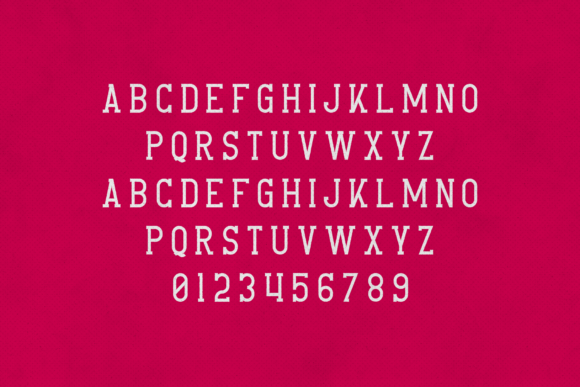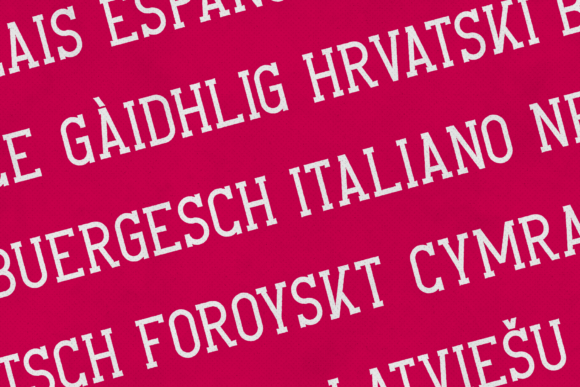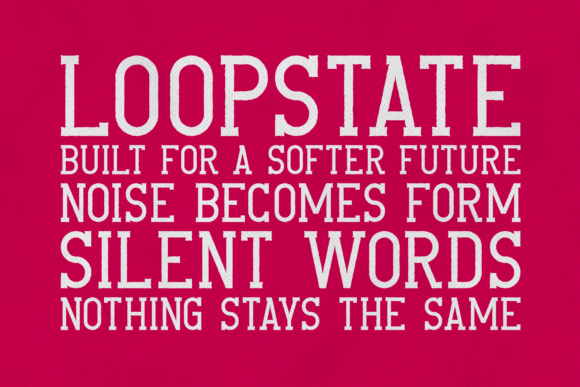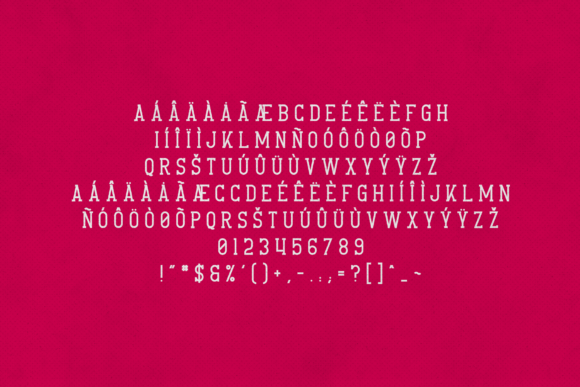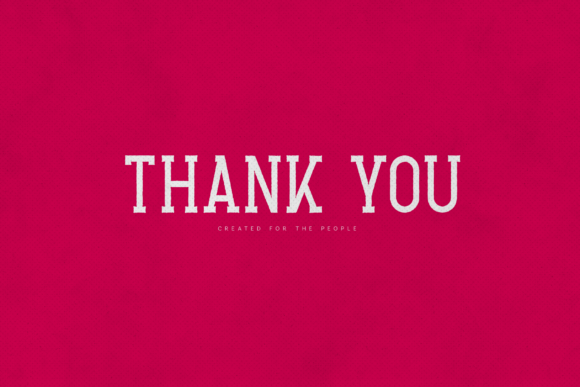
Introducing Crossroad Slab: A Bold Vintage Slab Serif for Statement Branding
Are you looking for a font that exudes personality and authenticity? Look no further than Crossroad Slab, a bold vintage slab serif inspired by classic American woodtype, western posters, and old-school print textures. This font is perfect for designers and crafters who want to add a touch of nostalgia and rugged charm to their branding projects.
The Inspiration Behind Crossroad Slab
Crossroad Slab – Rough Edition is a font that draws inspiration from the classic American woodtype, western posters, and old-school print textures. Its strong slab structure and subtle distressed texture give it a unique and rugged charm that is perfect for statement branding, packaging, merchandise, and bold editorial headlines.
Key Features of Crossroad Slab
- Bold and Vintage Look: Crossroad Slab has a bold and vintage look that is perfect for creating statement branding and eye-catching headlines.
- Slab Serif Structure: The font features a strong slab serif structure that gives it a rugged and authentic look.
- Subtle Distressed Texture: The subtle distressed texture adds a touch of nostalgia and old-school charm to the font.
- Excellent Readability: Despite its bold and rugged look, Crossroad Slab maintains excellent readability, making it perfect for use in a variety of applications.
Perfect for Vintage Branding and More
Crossroad Slab is perfect for a variety of design projects, including:
- Vintage Branding: The font’s bold and vintage look makes it perfect for creating statement branding that exudes authenticity and personality.
- Western Logos: The font’s western-inspired design makes it perfect for creating logos and branding materials for western-themed businesses.
- Whiskey Labels: The font’s bold and rugged look makes it perfect for creating eye-catching whiskey labels.
- Barber Shops: The font’s vintage look and feel makes it perfect for creating branding materials for barber shops and other traditional businesses.
- Craft Beer Packaging: The font’s bold and rugged look makes it perfect for creating eye-catching packaging for craft beer.
- Posters & Flyers: The font’s bold and vintage look makes it perfect for creating eye-catching posters and flyers.
- Merch & Apparel: The font’s bold and rugged look makes it perfect for creating eye-catching merchandise and apparel.
- Bold Headlines: The font’s excellent readability and bold look make it perfect for creating bold and eye-catching headlines.
Why Choose Crossroad Slab?
So why choose Crossroad Slab for your design projects? Here are just a few reasons:
- Personality: Crossroad Slab has a unique personality that sets it apart from clean and modern serifs.
- Versatility: The font’s versatility makes it perfect for use in a variety of applications, from vintage branding to bold editorial headlines.
Authenticity: The font’s bold and vintage look gives it a handcrafted authenticity that is perfect for modern branding projects.
In conclusion, Crossroad Slab is a bold vintage slab serif that is perfect for designers and crafters who want to add a touch of nostalgia and rugged charm to their branding projects. With its strong slab structure, subtle distressed texture, and excellent readability, this font is perfect for creating statement branding, packaging, merchandise, and bold editorial headlines. So why wait? Download Crossroad Slab today and start adding a touch of personality and authenticity to your design projects!